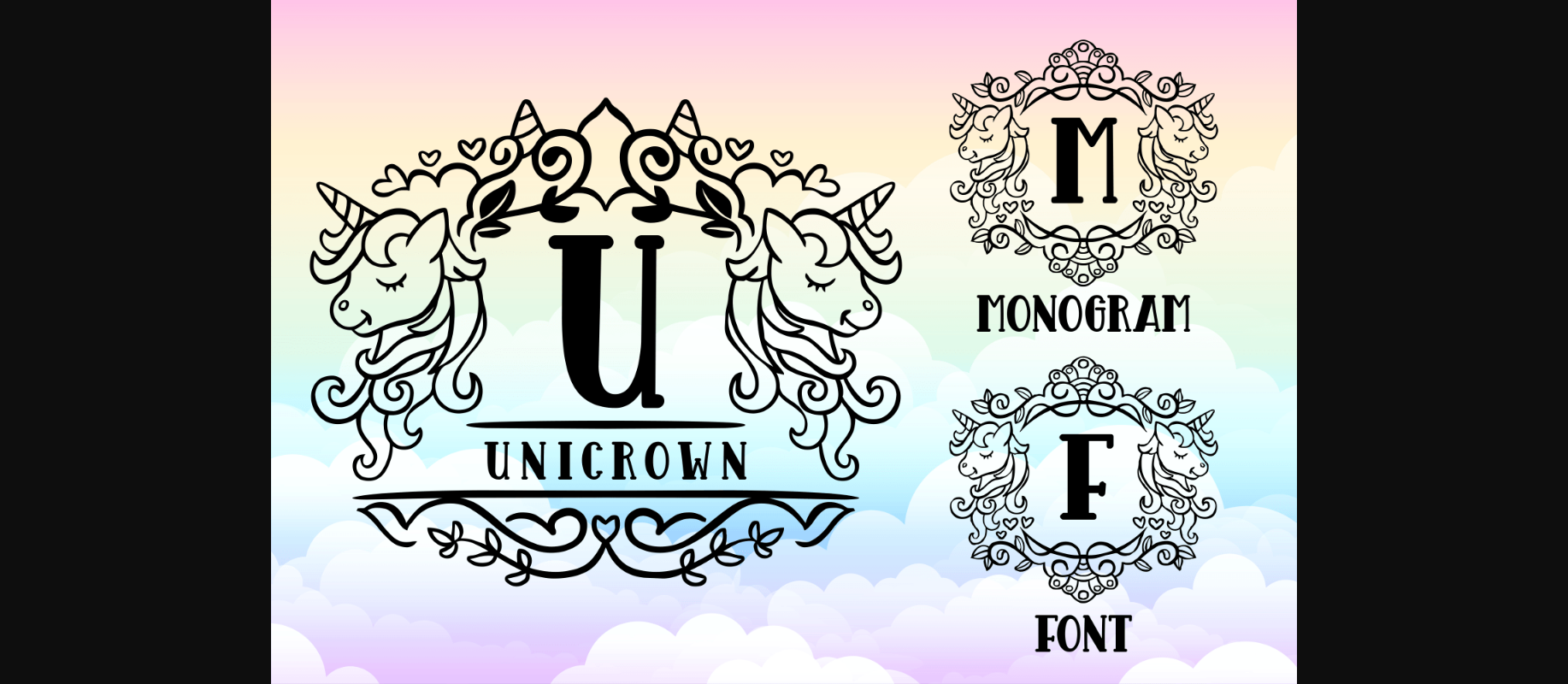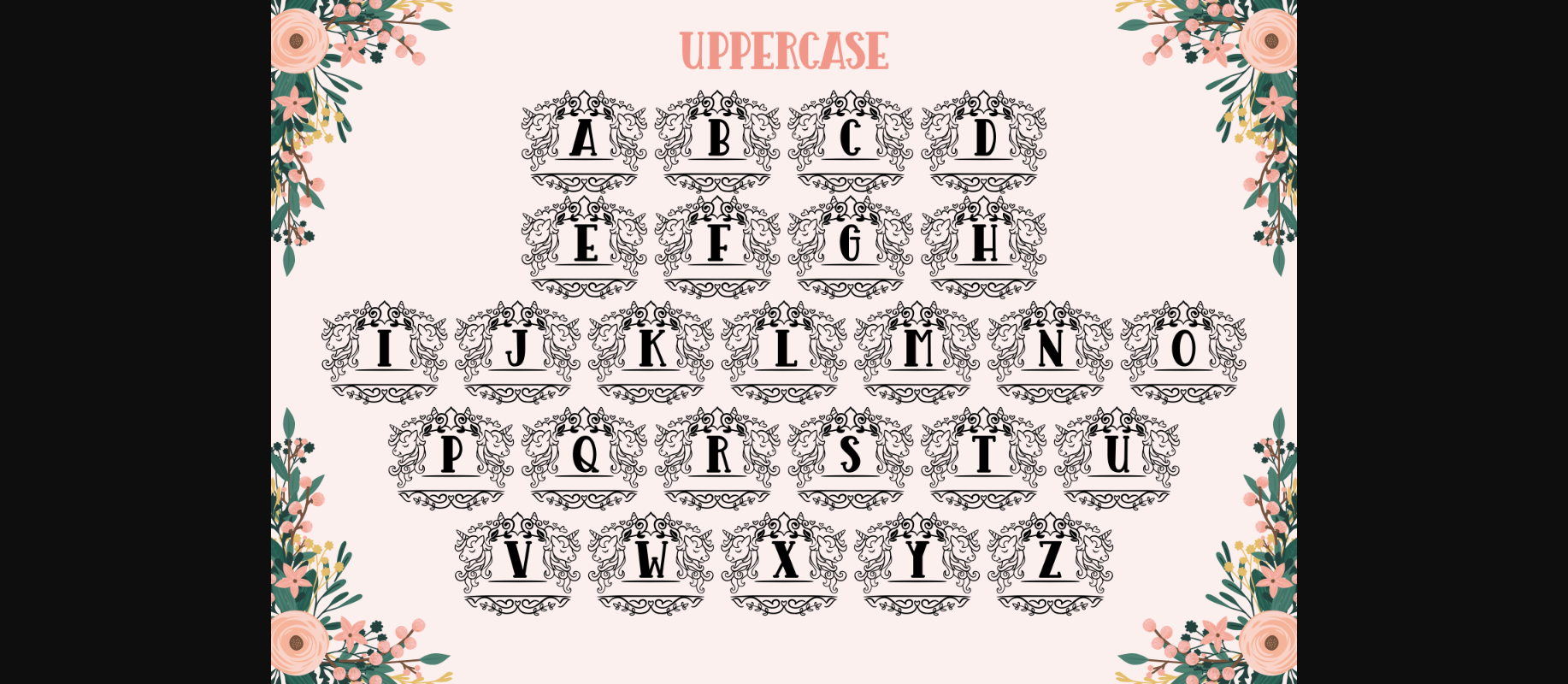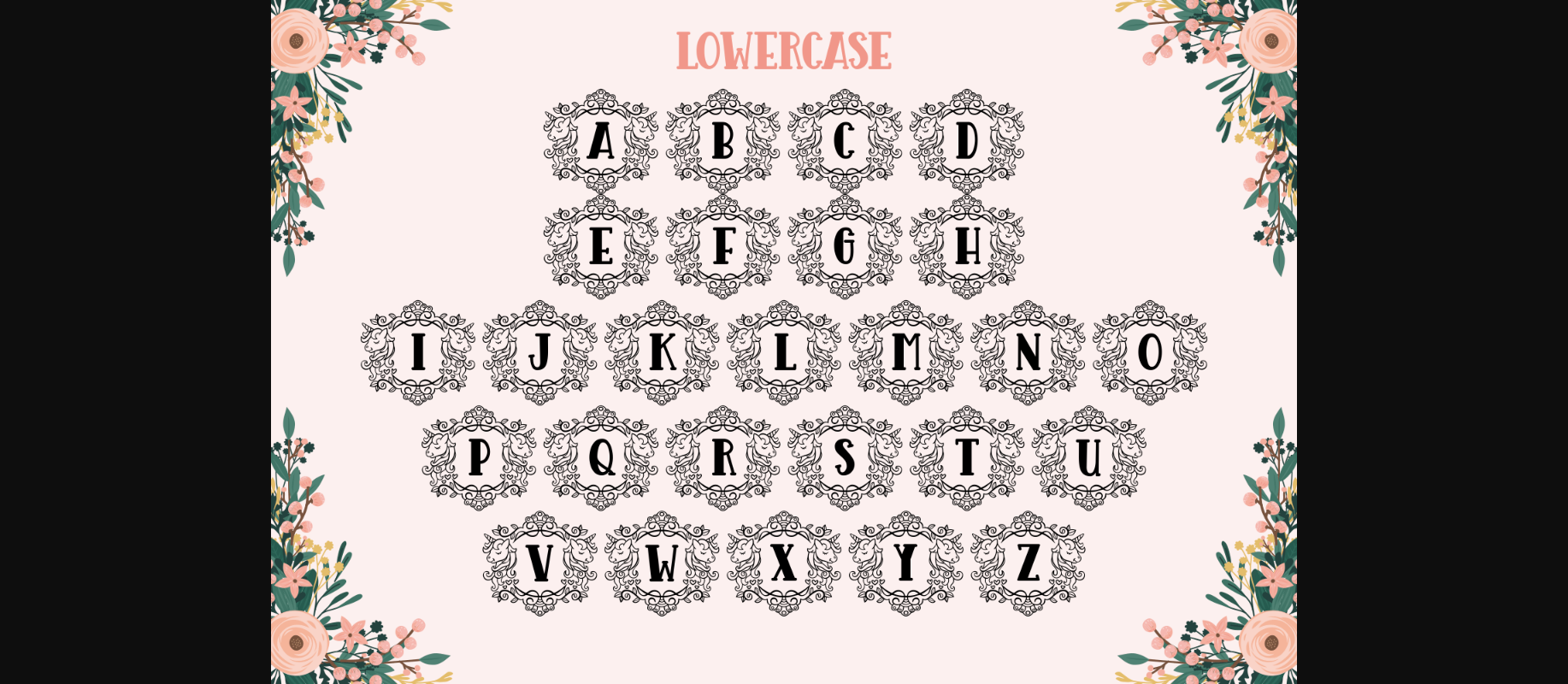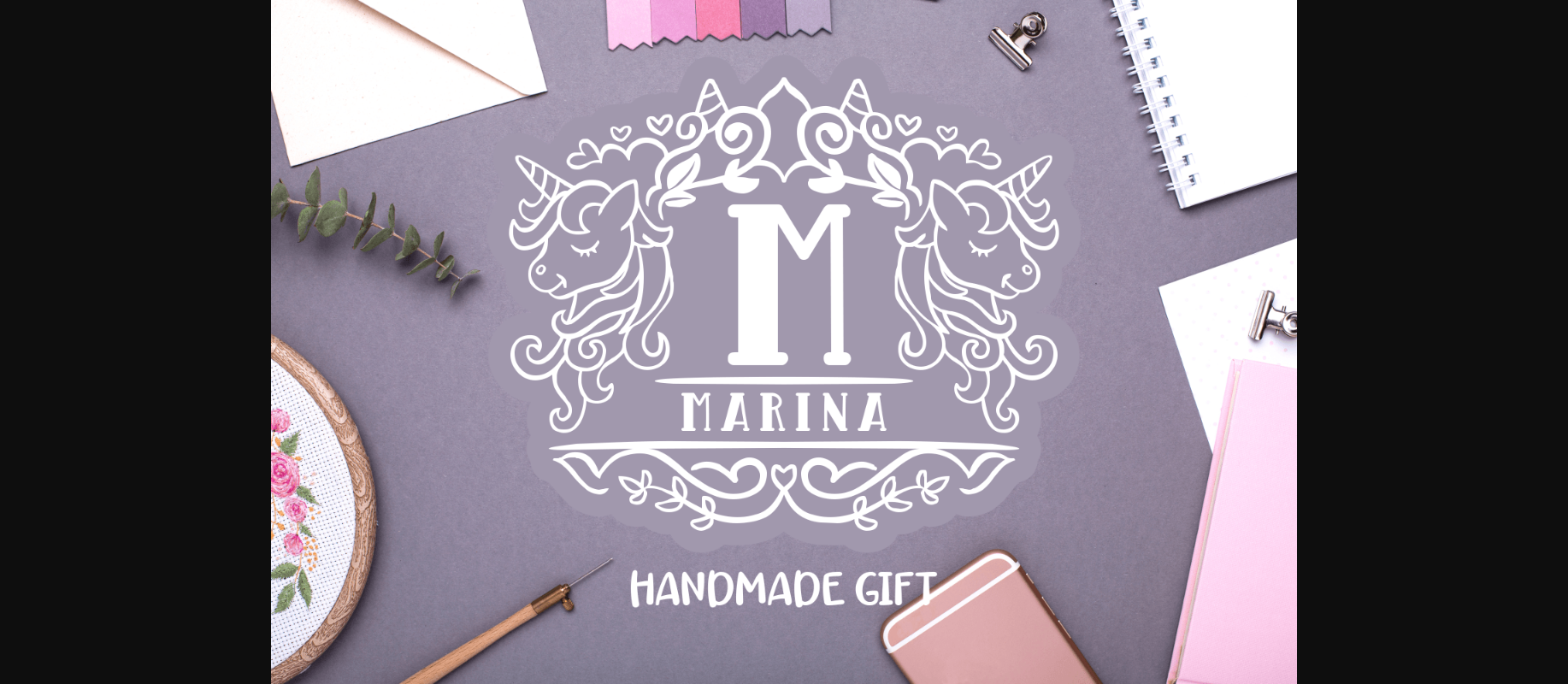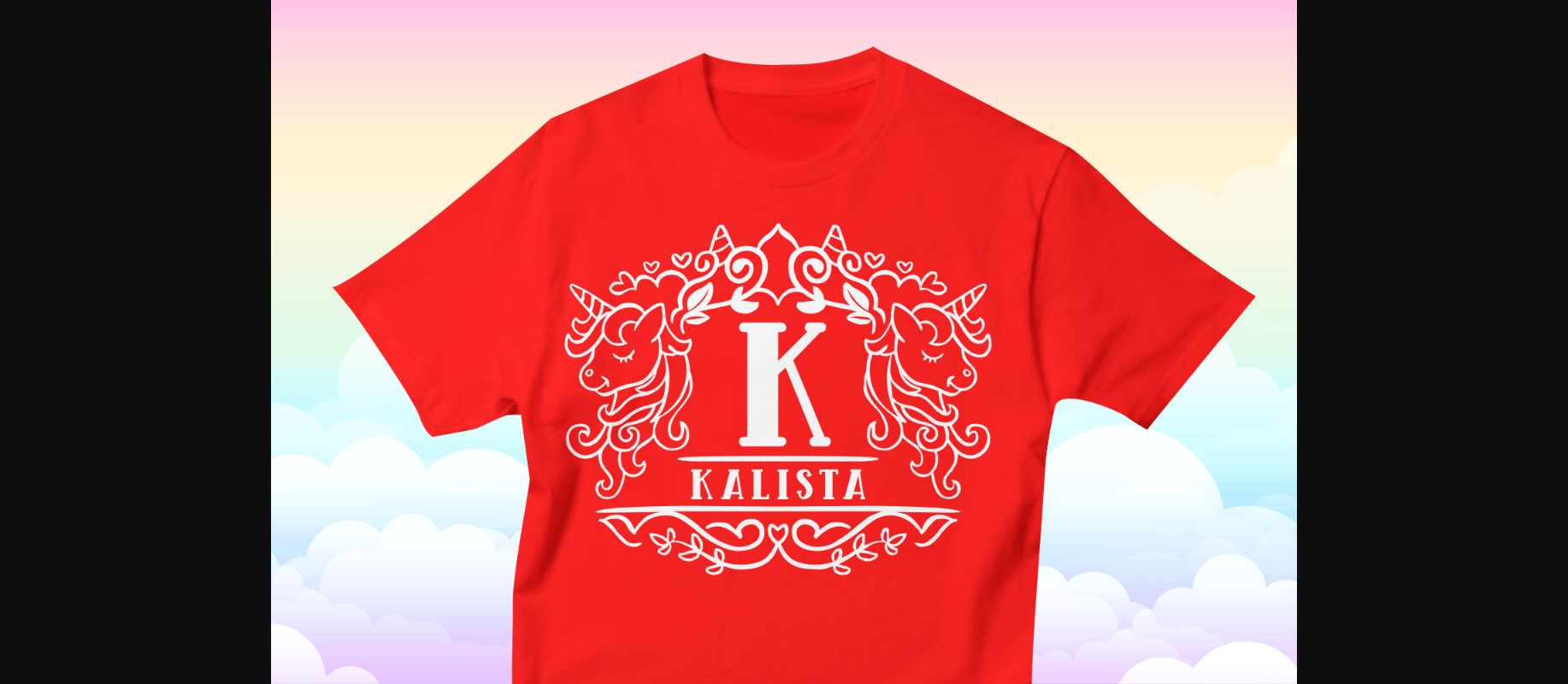
HomeDecorative FontsUnicrown Font Decorative Fonts Unicrown Font FacebookXPinterestWhatsApp 1 of 7 ... Unicrown Font Poster 2... Unicrown Font Poster 3... Unicrown Font Poster 4... Unicrown Font Poster 5... Unicrown Font Poster 6... Unicrown Font Poster 7... About Unicrown Font Unicrown is a cute and whimsical decorative font. This adorable monogram typeface will definitely immerse your designs in a magical world. DOWNLOAD NOW People also explored Monday Rainbow Font Alphabet Houses Font Sweet Brownis Font Pratama Font Kastangel Font Darkspear Font Paintings Condensed Font Hogata Font Reload 370 0 TagsUnicrown Font Previous articleXmas Coming FontNext articleCold Xmas Font LEAVE A REPLY Cancel reply Comment: Please enter your comment! Name:* Please enter your name here Email:* You have entered an incorrect email address! Please enter your email address here Website: Save my name, email, and website in this browser for the next time I comment. Personal Use Free BD AsciiMax Personal Use Free Read more about this font Lion Teen Personal Use Free Read more about this font Pumpkin Type Halloween Font Personal Use Free Read more about this font Baby Cute Personal Use Free Read more about this font BLOG Using Fonts in Digital Marketing: Tips to Strengthen Your Brand Identity In the realm of digital marketing, every visual element plays a crucial role in shaping a brand's identity, and fonts are no exception. The... Elegant Wedding Invitation Fonts – Handwritten & Script Fonts Top 10 Handwritten Fonts That Elevate Your Designs To increase your work productivity, choose the most readable fonts.